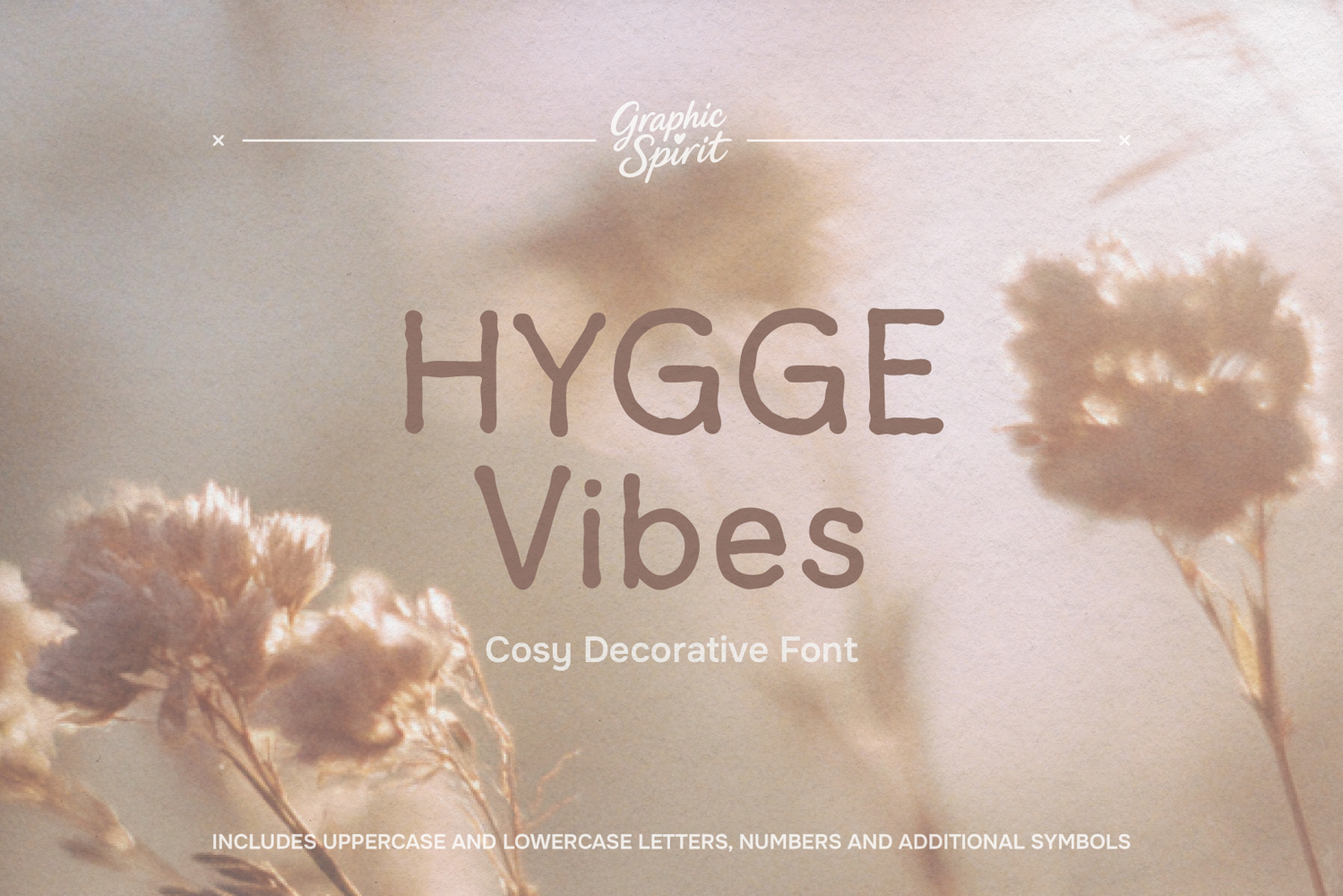
Hygge Vibes Cozy Decorative Font
☁️ Wrap your projects in the warm, inviting embrace of our Hygge Vibes Cozy Decorative Font. This beautifully crafted typeface features soft, rounded letters with a gentle, hand-drawn feel, perfectly capturing the essence of comfort and contentment. It’s an ideal choice for adding a touch of Scandinavian charm to your digital creations.
🎨 Instantly elevate your branding, social media quotes, wedding stationery, and DIY craft projects with this versatile font. Please note this is a digital download only; no physical item will be shipped. ✨